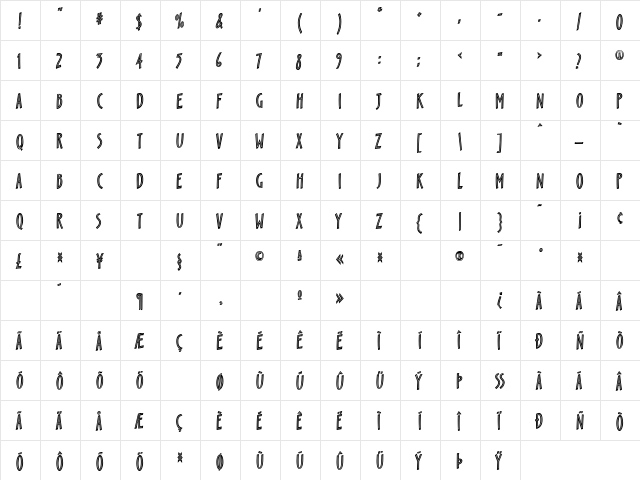
Scamp BoldInline
Design Context for Scamp Typeface
Scamp brings ornamental detail and strong personality to headlines and identities, where visual impact matters more than quiet functionality. Its bold stroke weight gives it real presence on the page.
Font Pairing: Pair with a clean neutral sans-serif for body copy to let Scamp's character lead without overwhelming the composition.
Pro Tip: Treat Scamp as the centrepiece of your typographic hierarchy. One strong heading set in a decorative face can carry an entire layout.